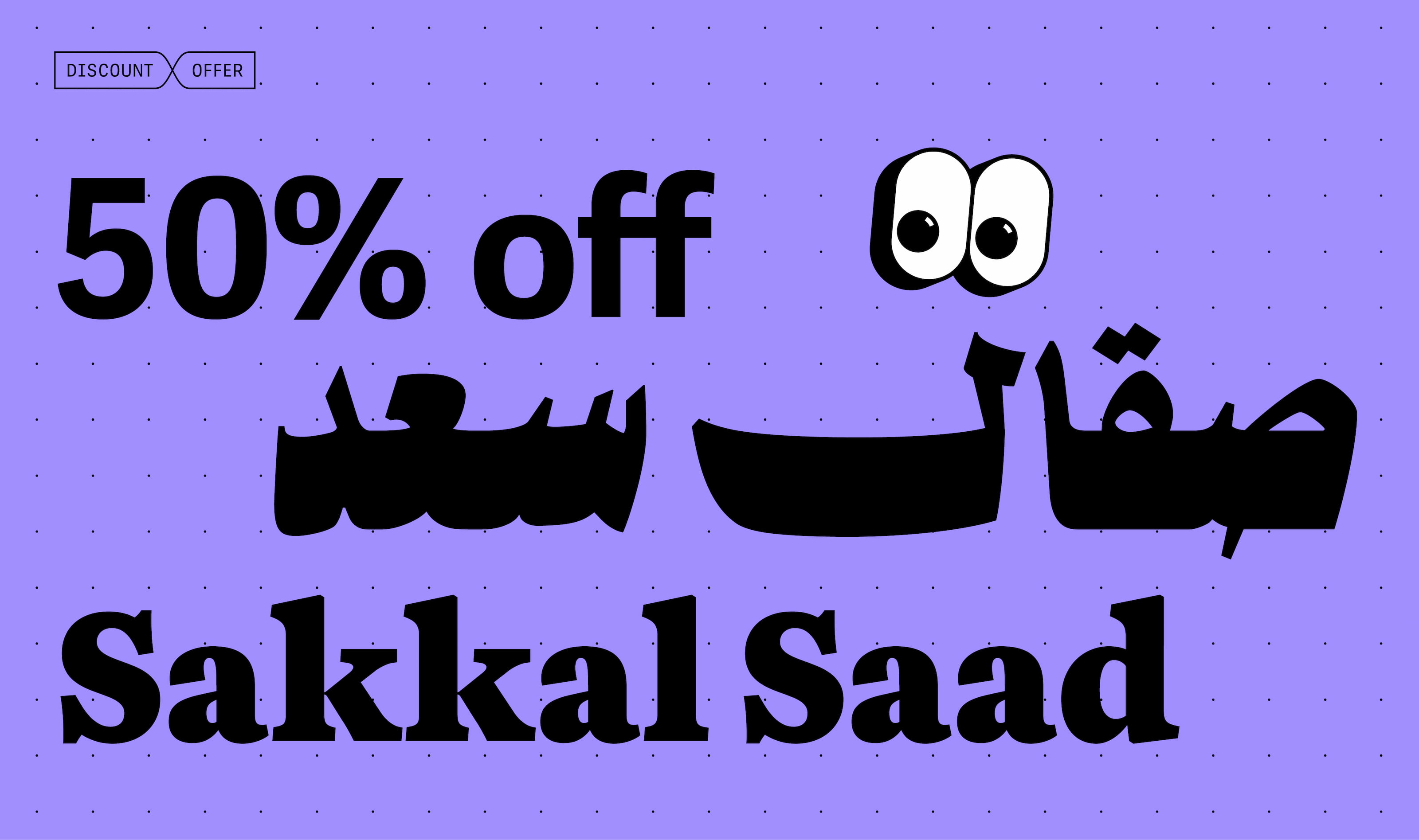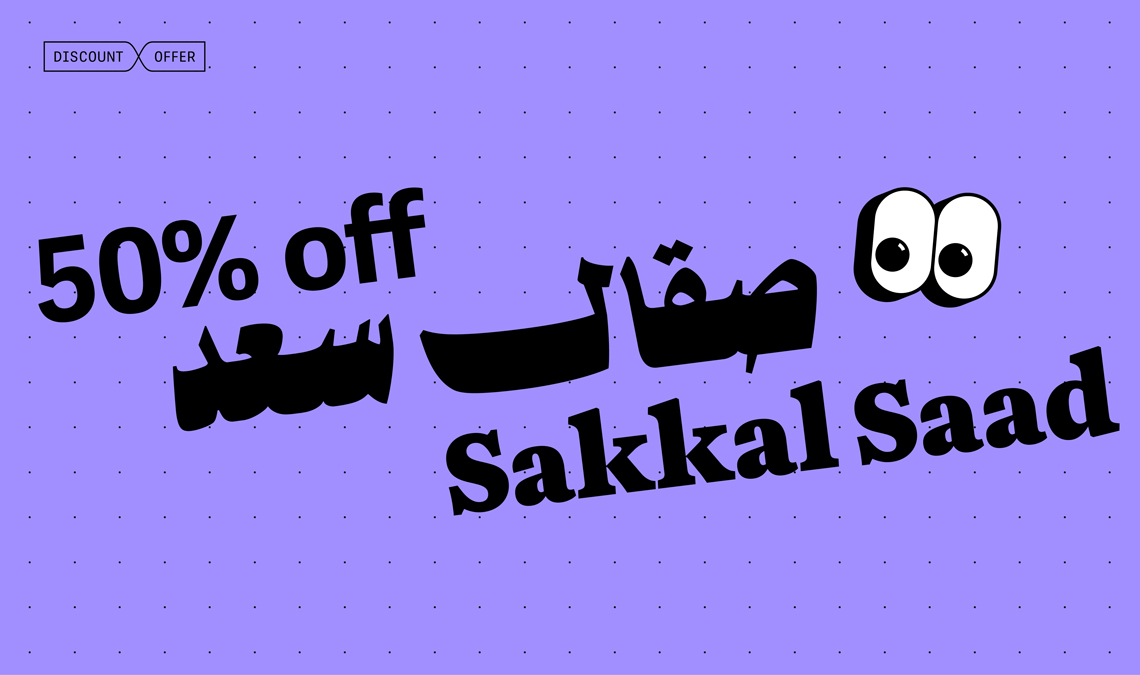
Sakkal Saad introductory offer
For a limited time, get Dr Mamoun Sakkal and Aida Sakkal’s friendly, handwritten Naskh with both a modern feel and a nostalgic vibe, at half price.
Sakkal Saad and Sakkal Saad Poster combine modern typesetting with traditional aesthetics for perfect legibility and performance in any media format. The family is ideal for signage, branding, poetry, and long text settings, especially online and in books and magazines. With an included custom version of the award-winning Aneto Latin with Arabic-styled dots and punctuation, Sakkal Saad provides clarity and graphic style in multiscript design and communication, ensuring visual harmony across languages.